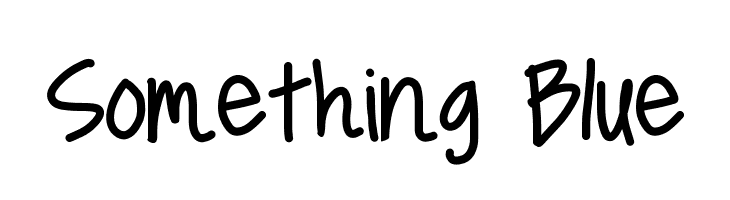
A playful, casual handwritten font with smooth, flowing lines.
A playful, hand-drawn font with a warm, organic feel.
A natural, handwritten font with a slight italic slant and casual style.
A playful, casual handwritten font with smooth, flowing lines.